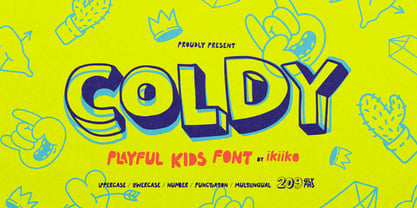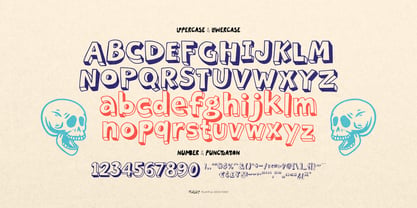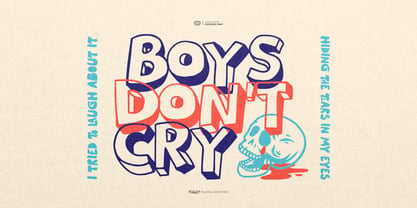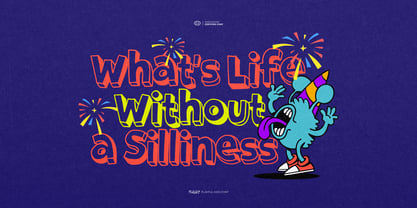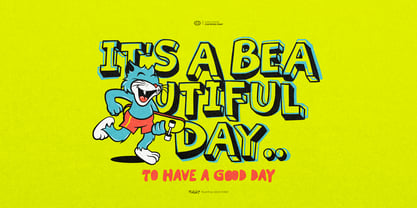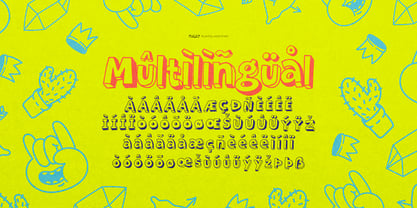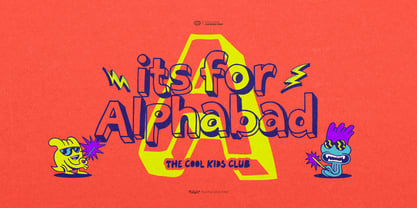
Coldy
Die Schriftfamilie Coldy wurde von Andhika Pradana entworfen und von IKIIKOWRK veröffentlicht. Coldy enthält 1 Stile. Mehr über diese Familie
Proudly Present Coldy - Playful Kids Font, created by ikiiko Coldy is a playful 3D hand drawn font with bold shapes, organic flow, and a fun doodle style. Designed with an artsy illustration vibe, this typeface brings energetic personality to every word. The chunky 3D look adds depth, while the hand drawn details keep it natural, friendly, and full of character. This playful font is perfect for kids branding, packaging, posters, book covers, logos, stickers, and social media graphics. Its organic and doodle-inspired style makes your design feel fresh, creative, and eye-catching. Coldy combines playful, 3D, hand drawn, organic, illustration, doodle, and artsy elements into one bold display font. If you want a fun kids font with strong visual impact and creative energy, Coldy is ready to stand out. What's Included? Uppercase & Lowercase Numbers & Punctuation Multilingual Support Works on PC & Mac Get also a good offer & FREEBIE at our site Enjoy our font and if you have any questions, you can contact us by email